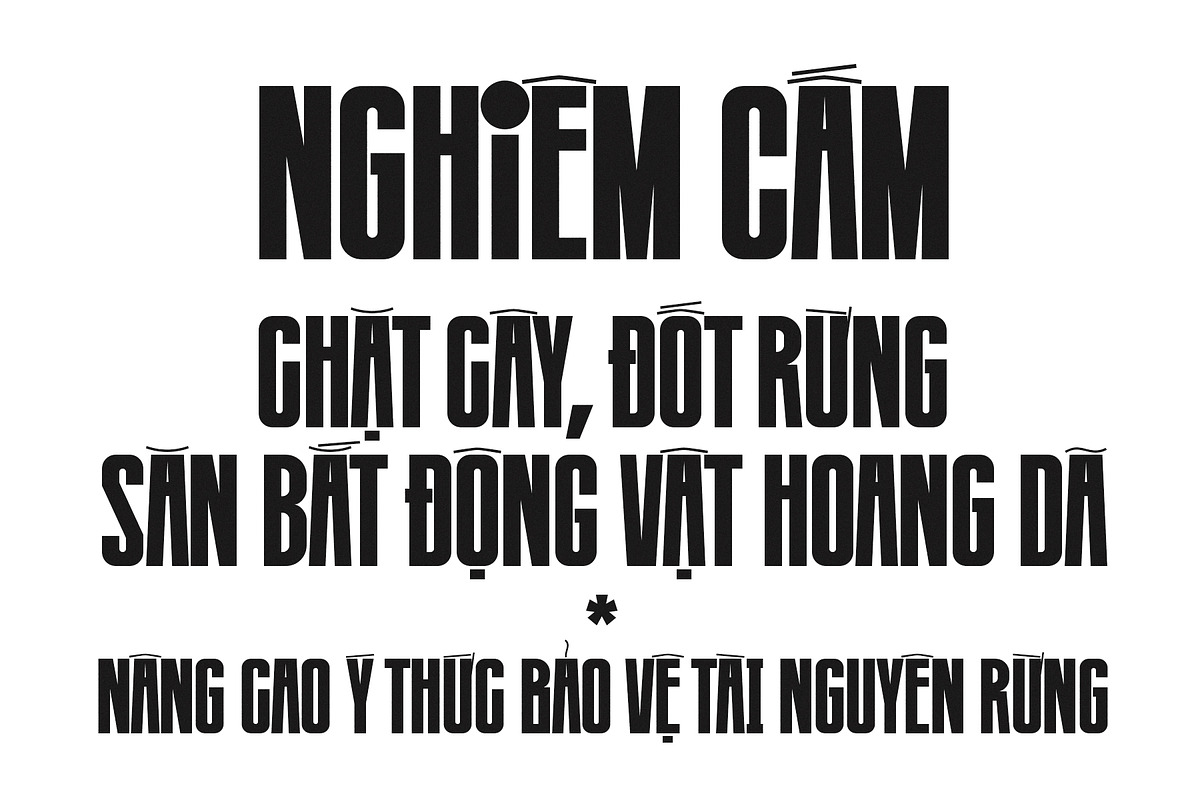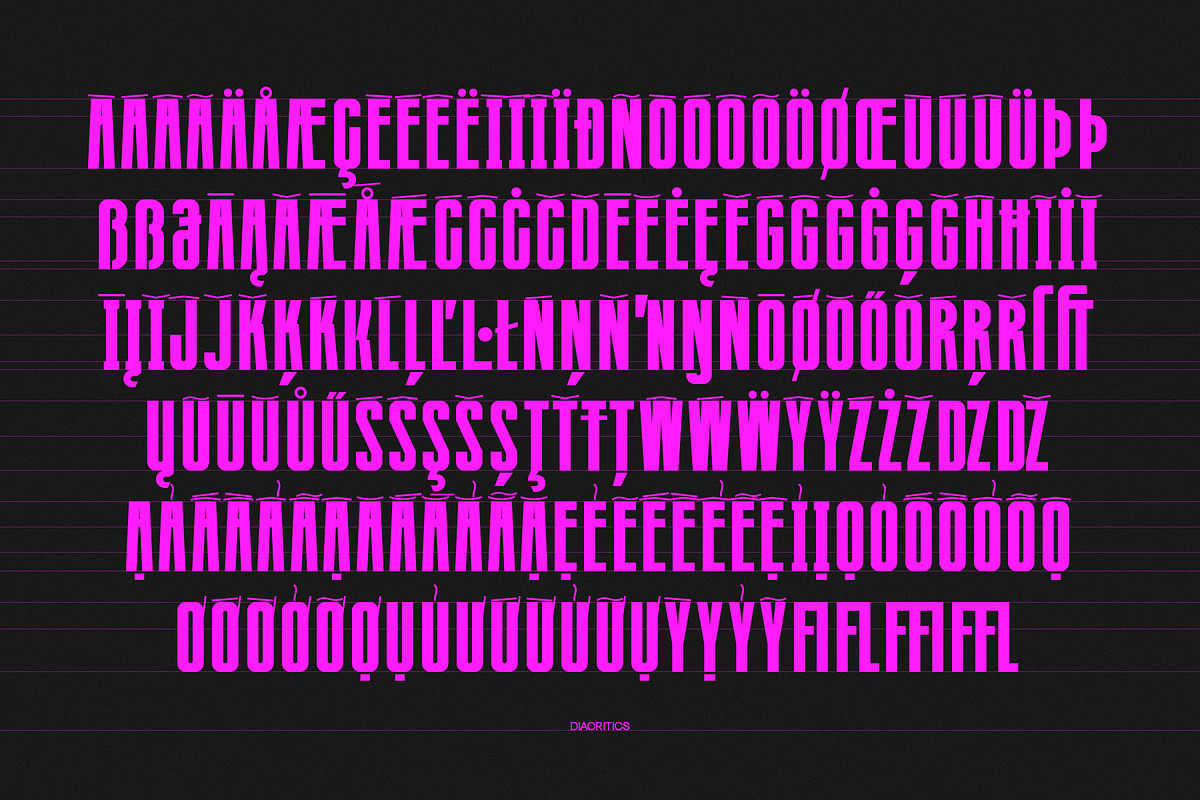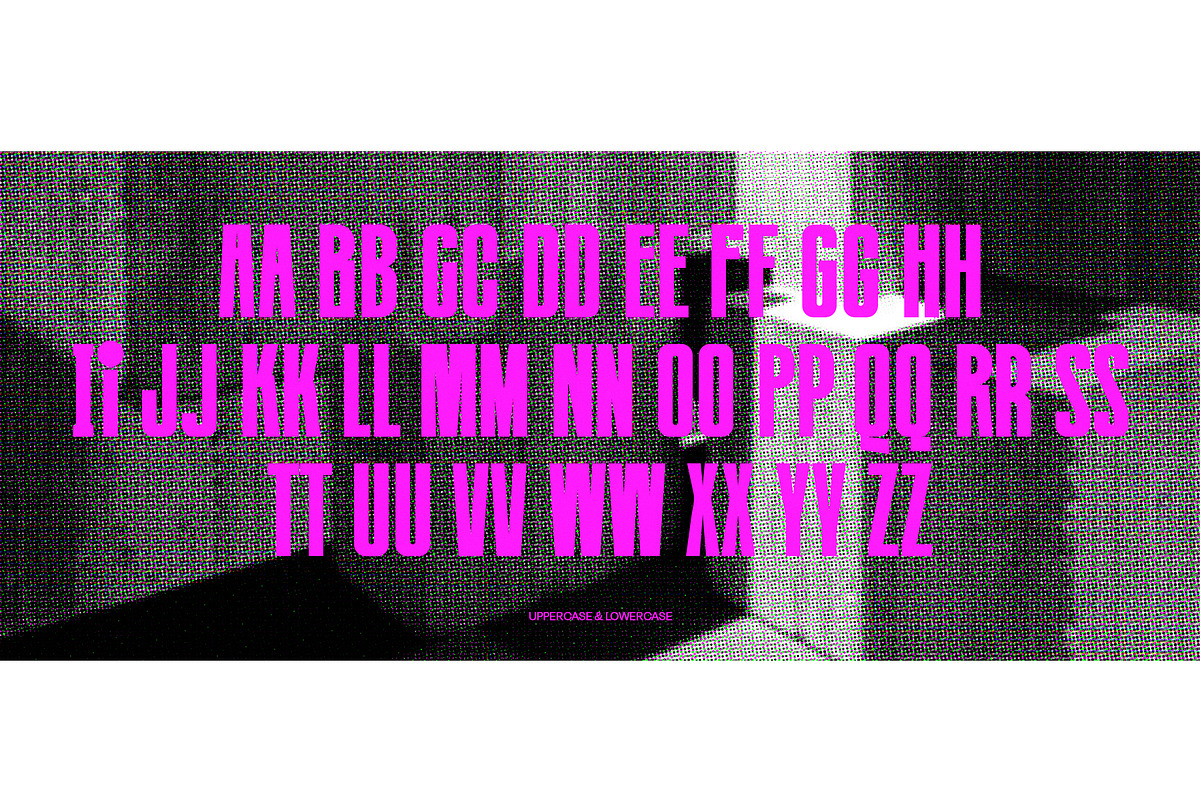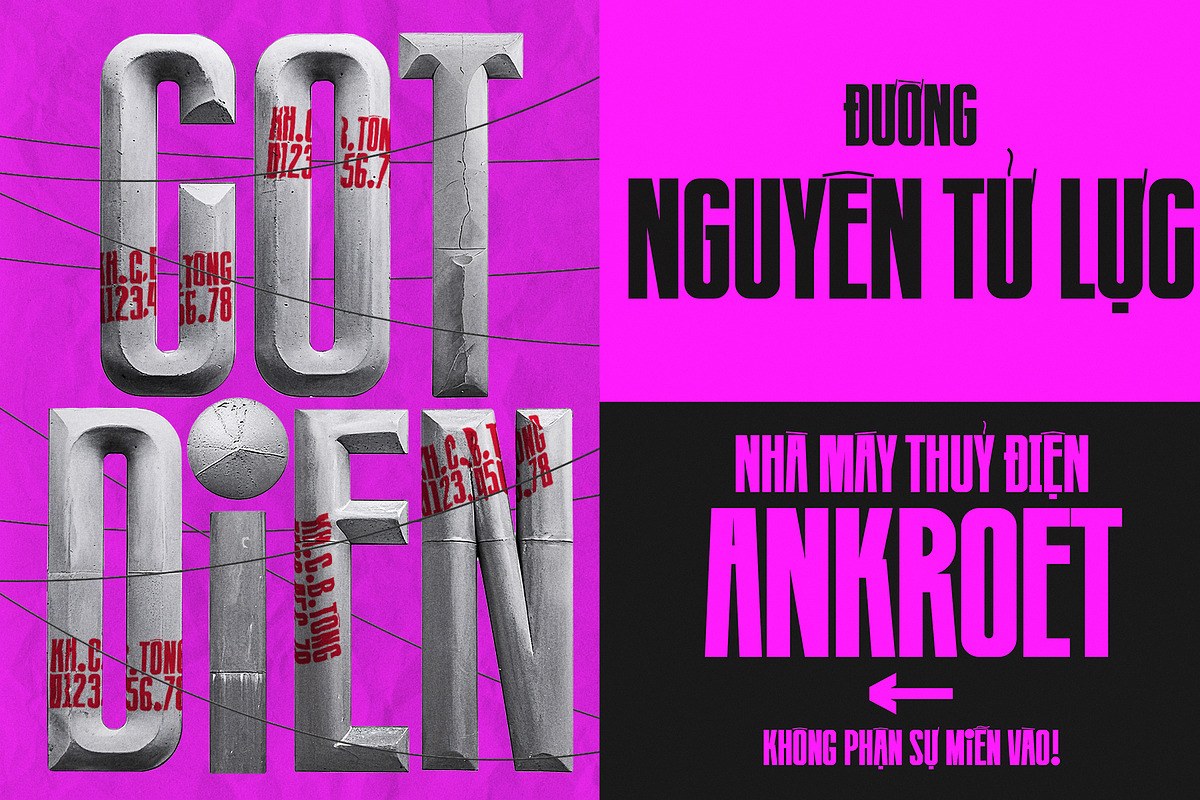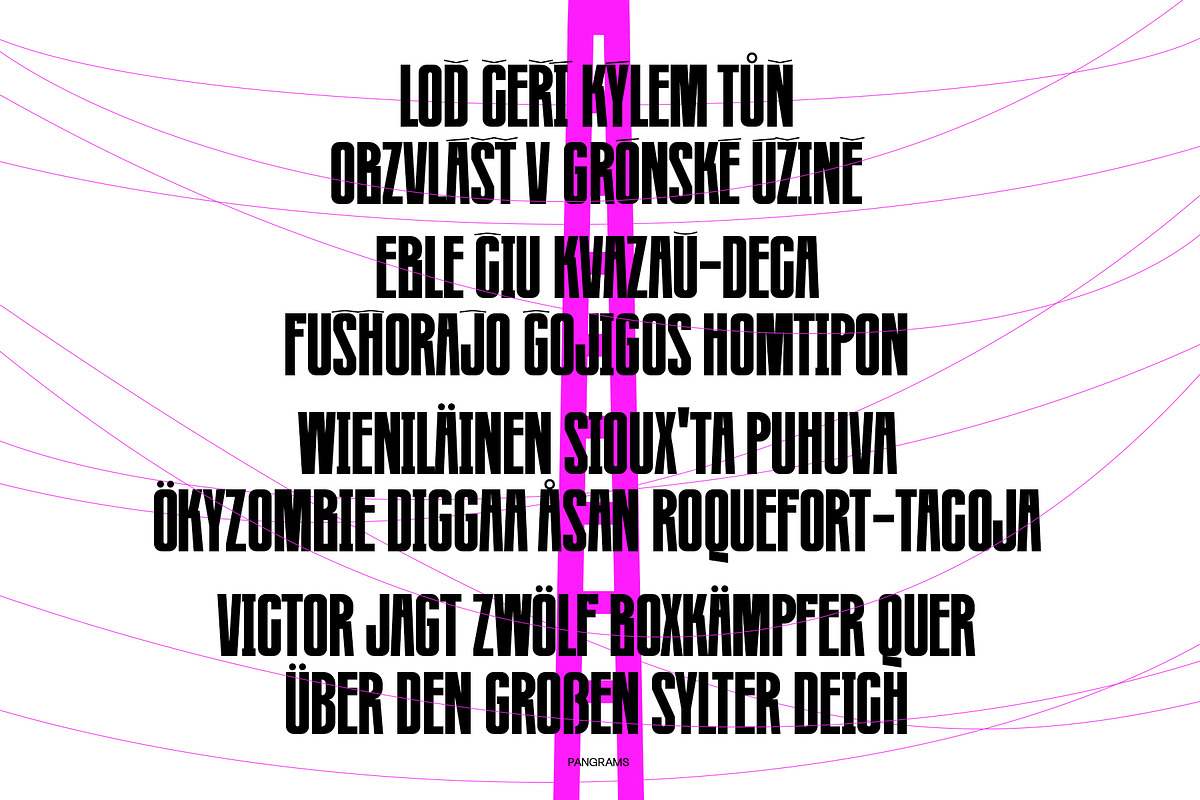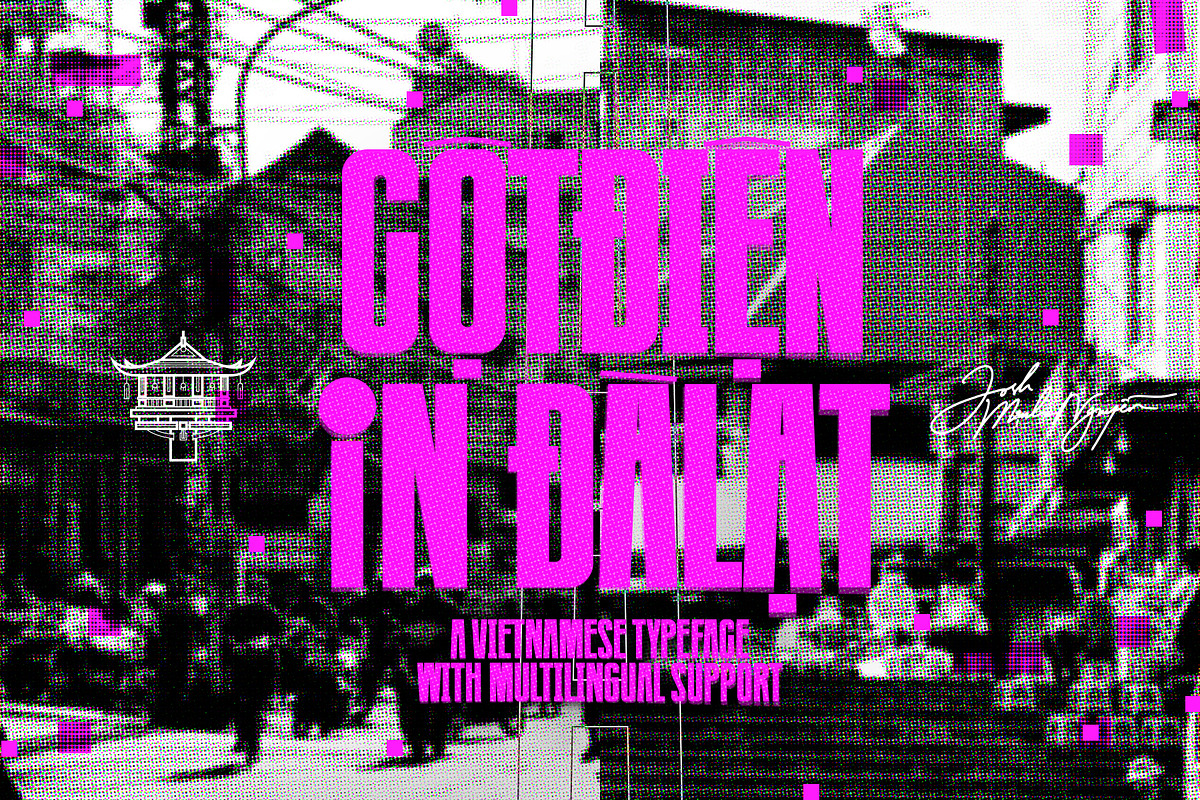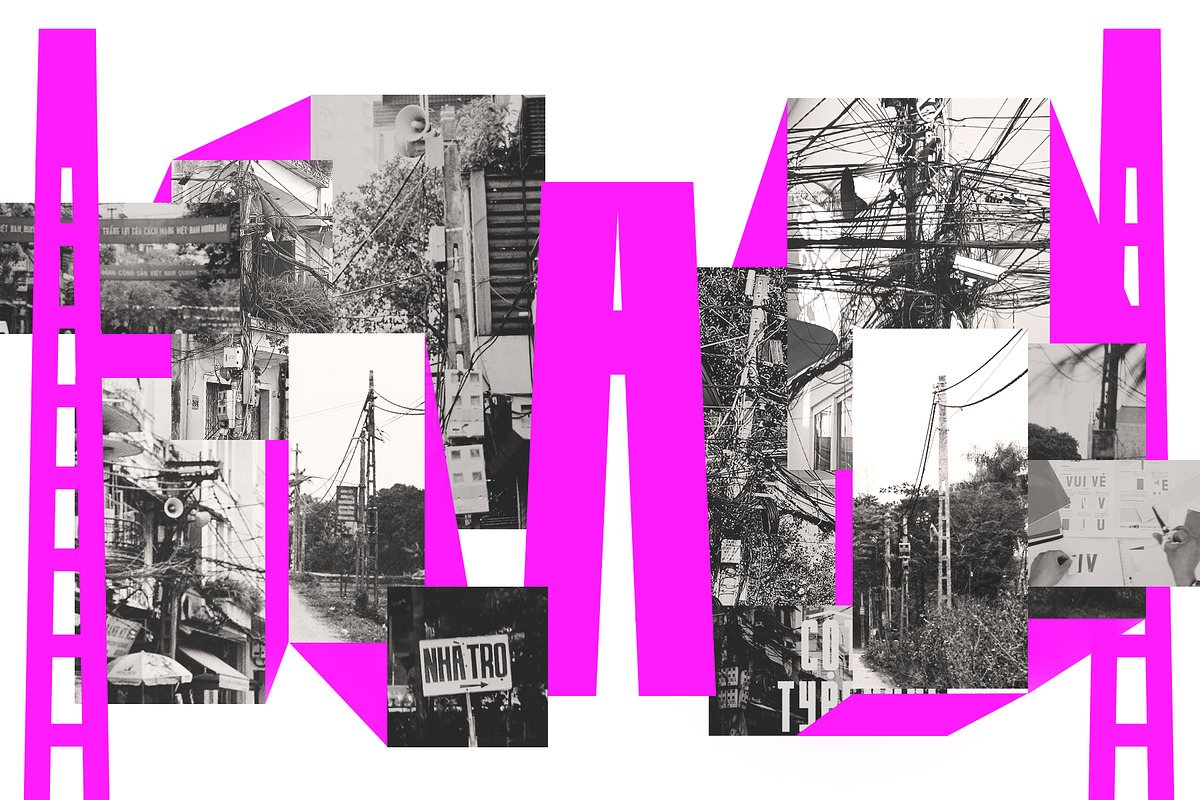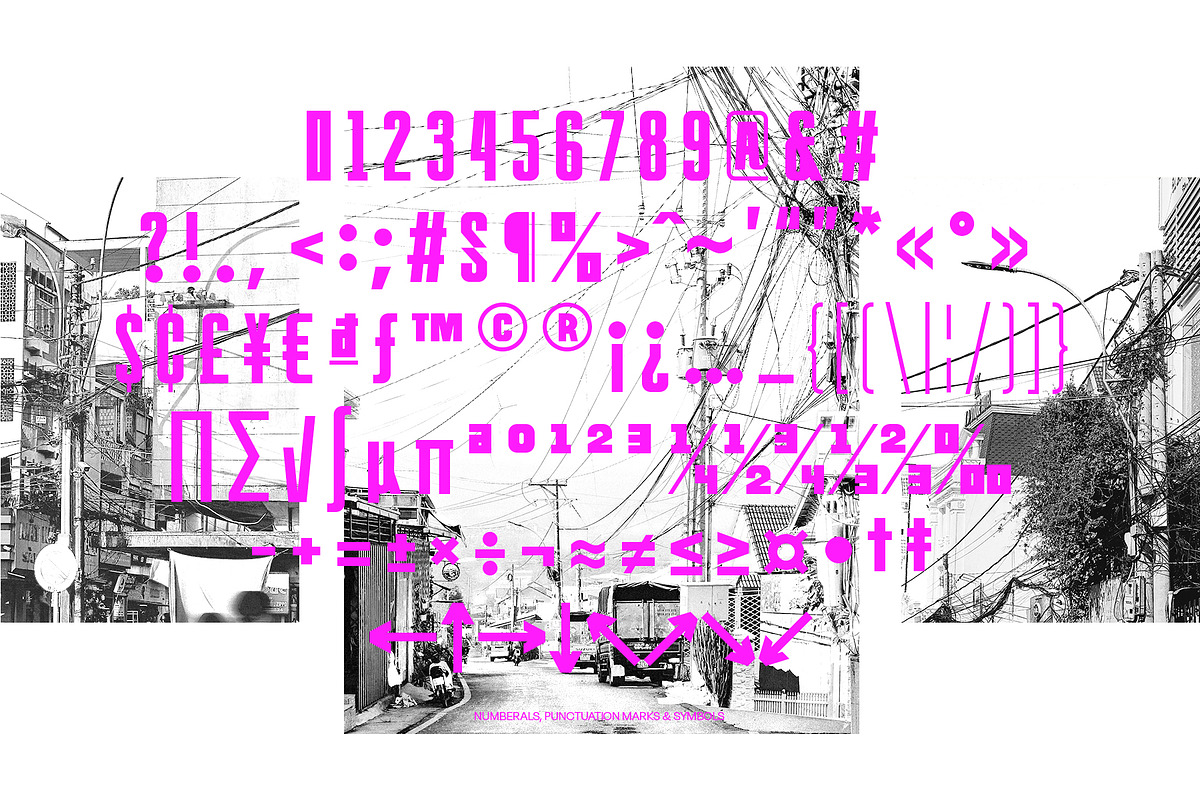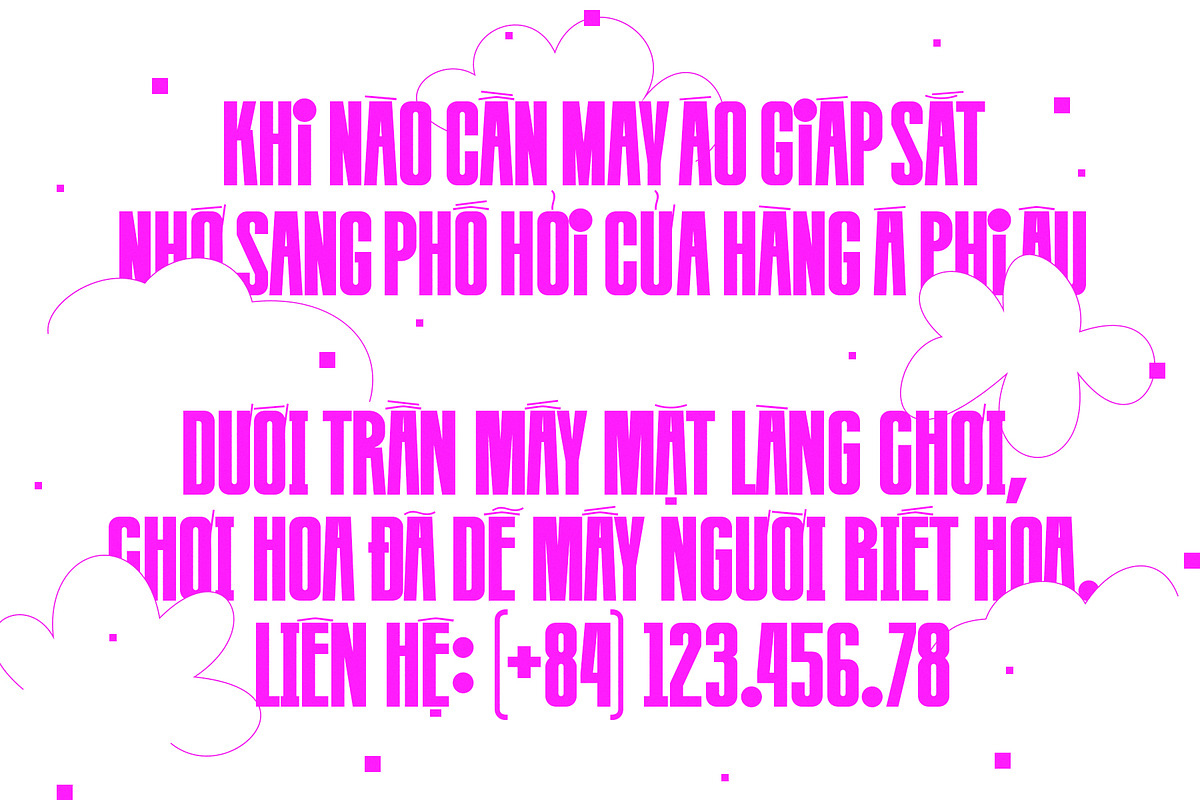
Cotdien In Dalat - Retro Viet Sans
Introducing Cotdien In Dalat (English: Power Poles of Dalat), a heavy condensed sans serif typeface and a revised version of the acclaimed Cotdien Typeface created by Manh Nguyen in 2016, with new twists and turns. Not only inheriting the distinctive diacritic system that captures the essence of retro Vietnam hand-painted panels, posters and signboards from 20th century, but Cotdien In Dalat also retains the compass-and-rulers character anatomy that was once taught in Letter Cutting Crafting classes in primary schools in the late 90s with the heavy weight, extra condensed that mimics the hand-cut red propaganda banners displayed across Vietnam streets in the 2000s. However, in this update, Cotdien In Dalat embeds new characteristics that highly align with its nameshake of the power poles: subtle contrast added between vertical and horizontal stems, clear cut strokes and sharp angles that echo the crude, geometric, industrialized Brutalism of the power poles' structure (typically made from concrete with molds), and rather than the unicase set of characters of the original, new Cotdien In Dalat has more case-sensitive characters and introduces new symbols and marks to further broaden the versatility too.